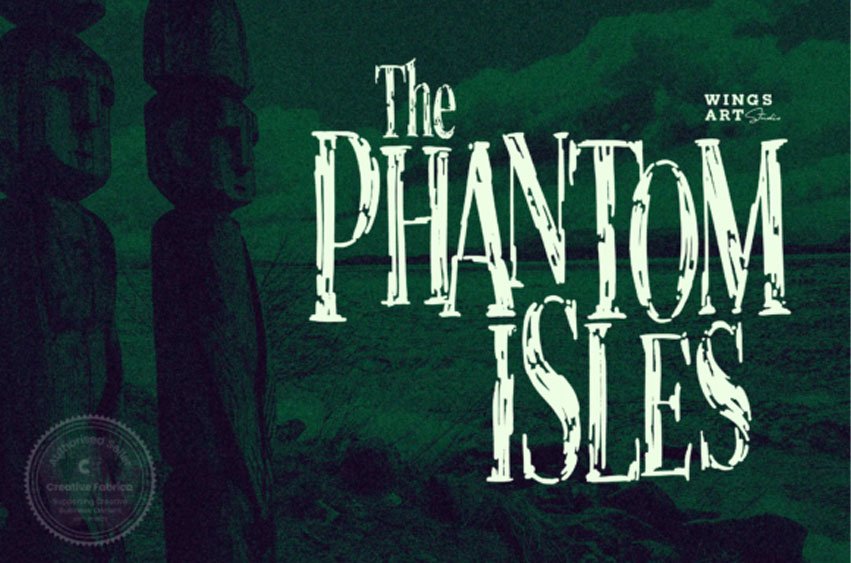
The Phantom Isles Font is a cool, dramatic and unique serif font. It has a distinct and fairytale-like touch.
Whether you are using it for cartoon-related designs, children games, quotes, titles, brand names, book covers, posters, or just any creation that requires a touch of joy, this font is a great choice.